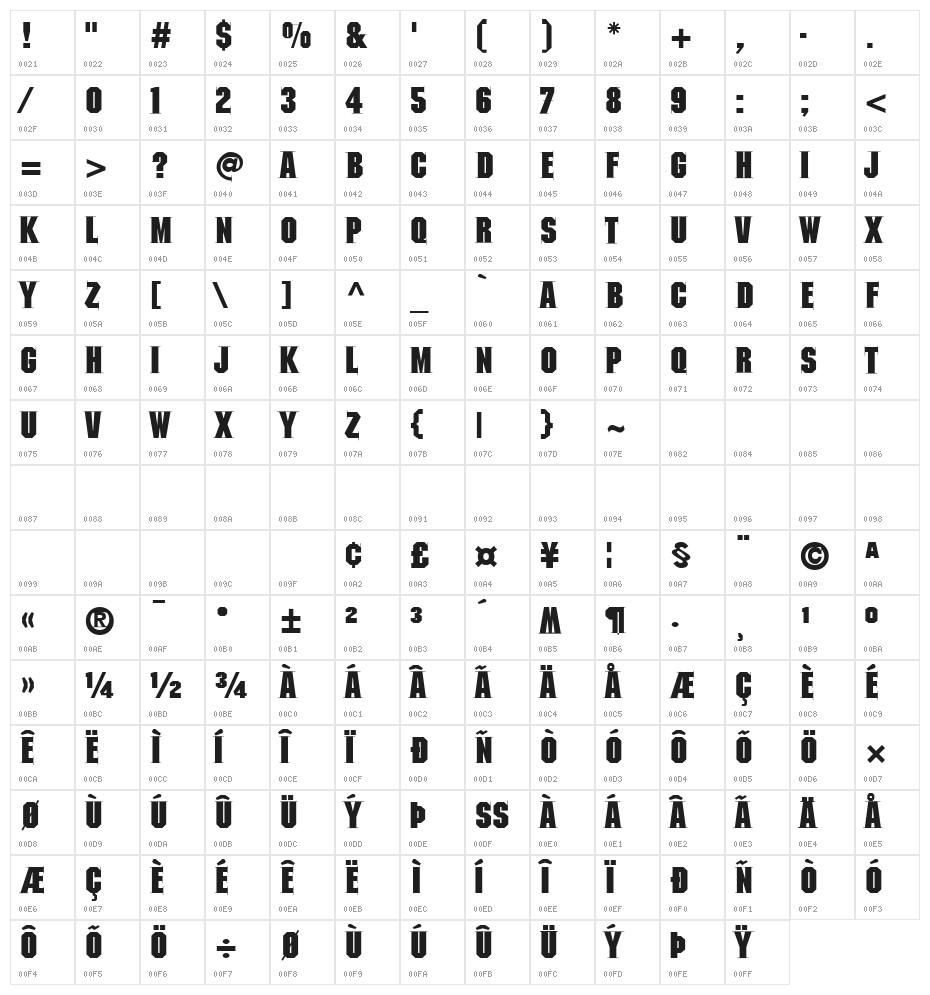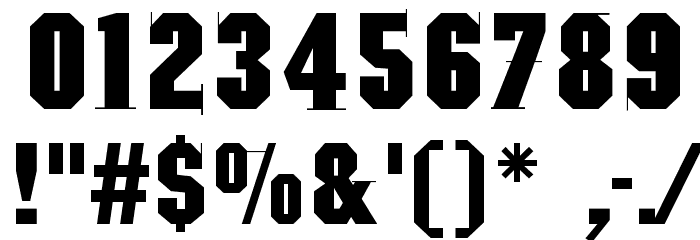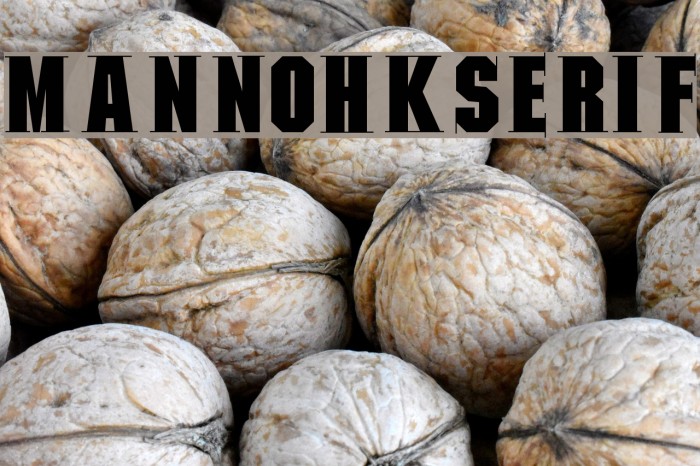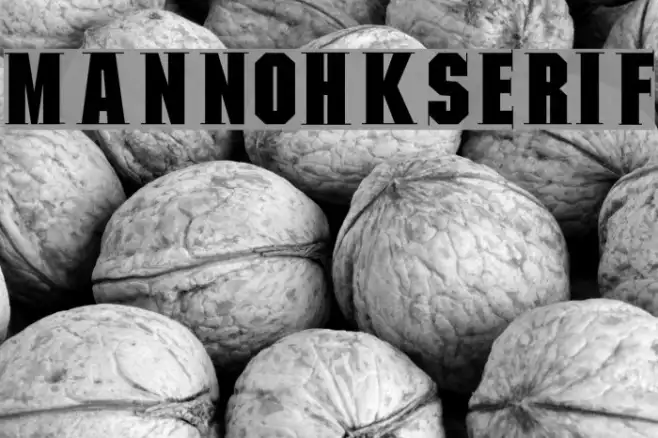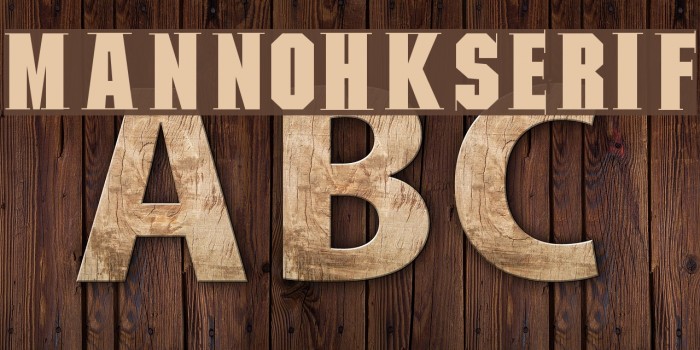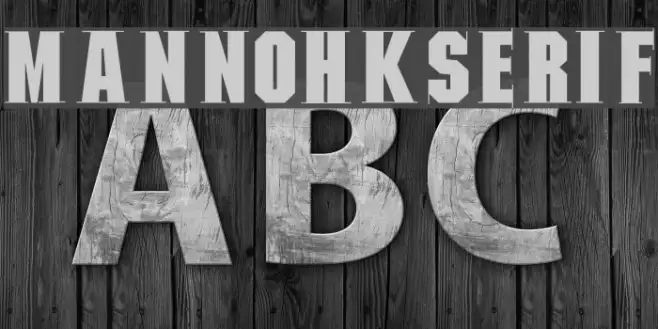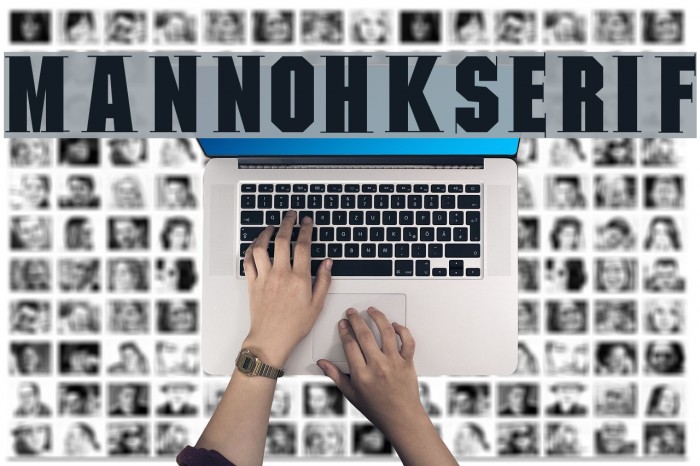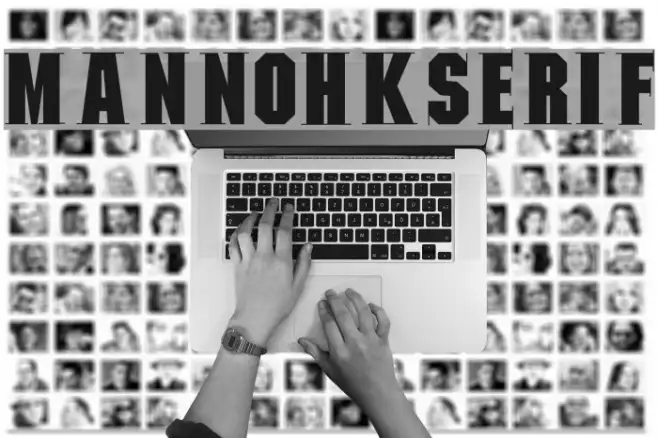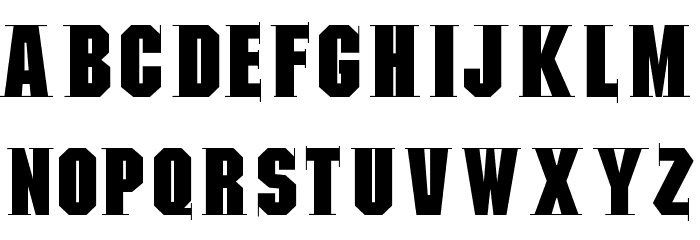
MannohKSerif Font
MannohKSerif Description
This font features bold, blocky characters with a strong presence, making it ideal for impactful designs. The letters are uniformly structured with sharp edges and a consistent weight throughout, giving it a robust and authoritative appearance. The uppercase and lowercase letters maintain a cohesive style, while the numerals and special characters are designed to match the overall bold aesthetic. The font's geometric shapes and solid lines contribute to its modern and assertive look, making it suitable for attention-grabbing headlines and branding materials.
| Proposed Projects | Ideal for headlines, posters, branding, and any design requiring a bold statement. |